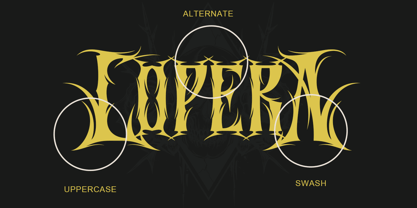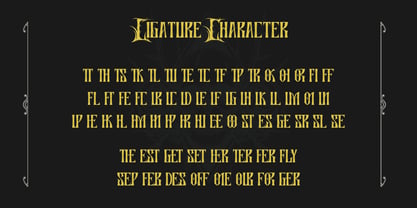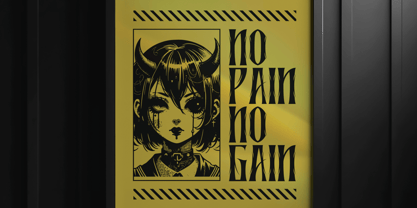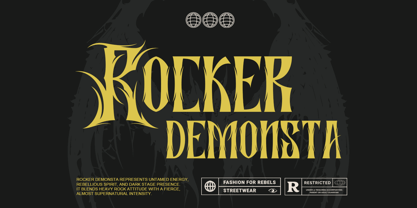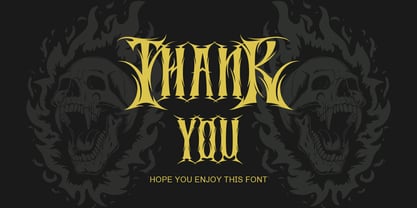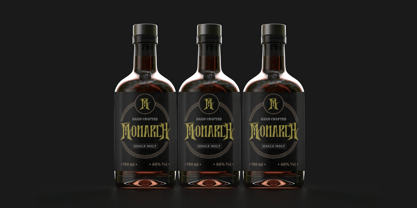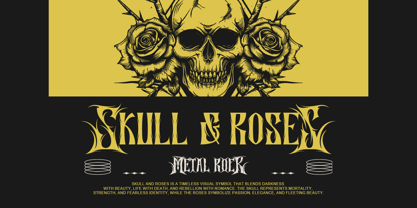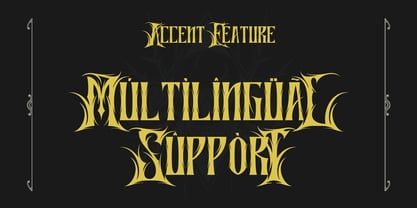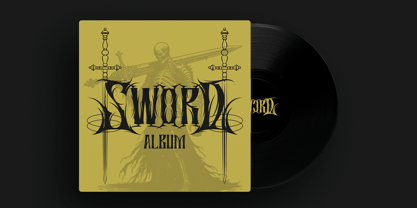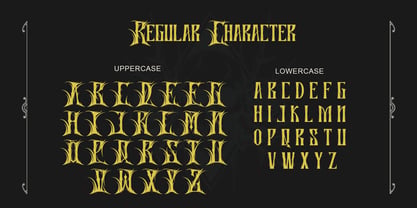
Zorvex
by Letterara
The Zorvex Font Family was designed by Thomas Aradea and published by Letterara. Zorvex contains 2 styles and family package options. More about this family
Zorvex is a powerful blackletter display font crafted with sharp aggressive forms and dramatic gothic energy, designed to create a commanding visual presence for professional creative projects. Its bold structure, intense character details, and modern metal-inspired aesthetic make it ideal for posters, album artwork, gaming titles, cinematic branding, event promotions, dark-themed packaging, and impactful visual identities that require a strong, unforgettable statement.